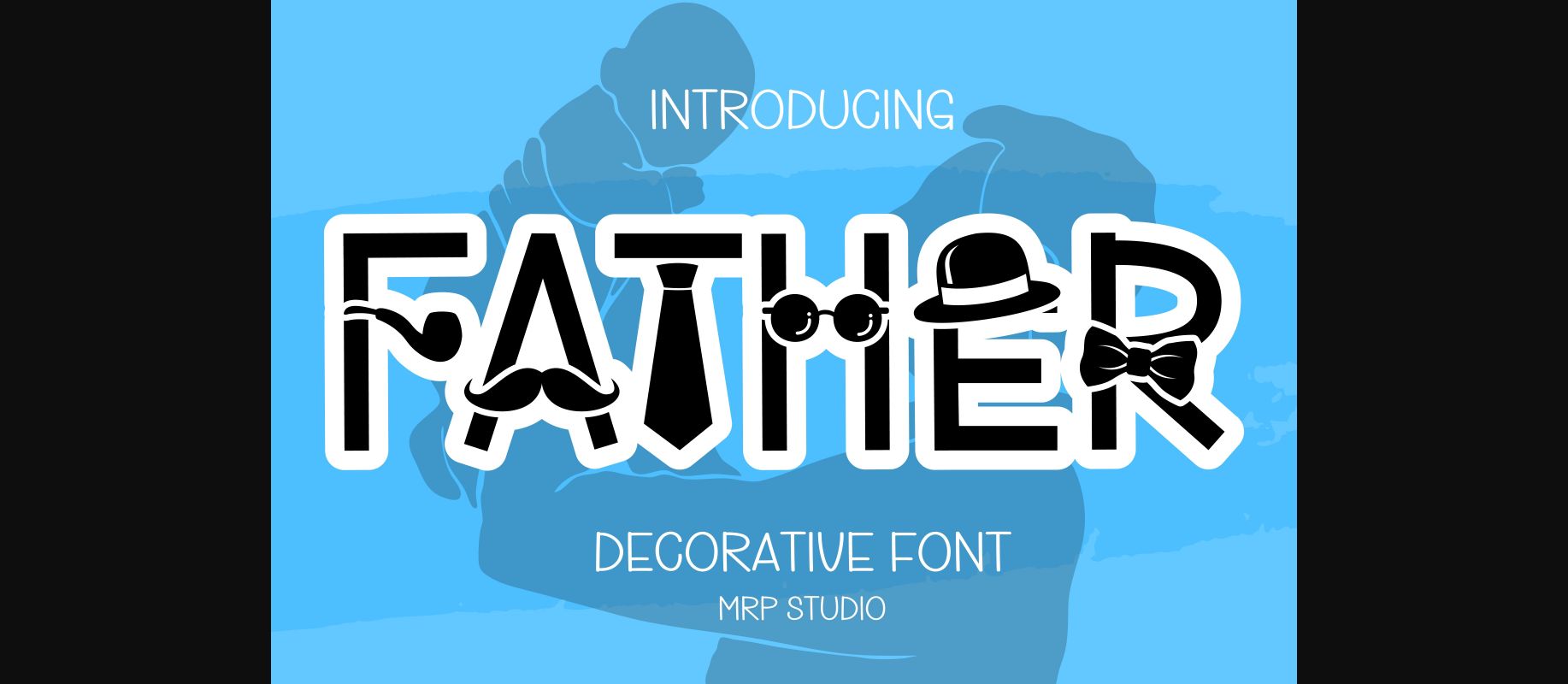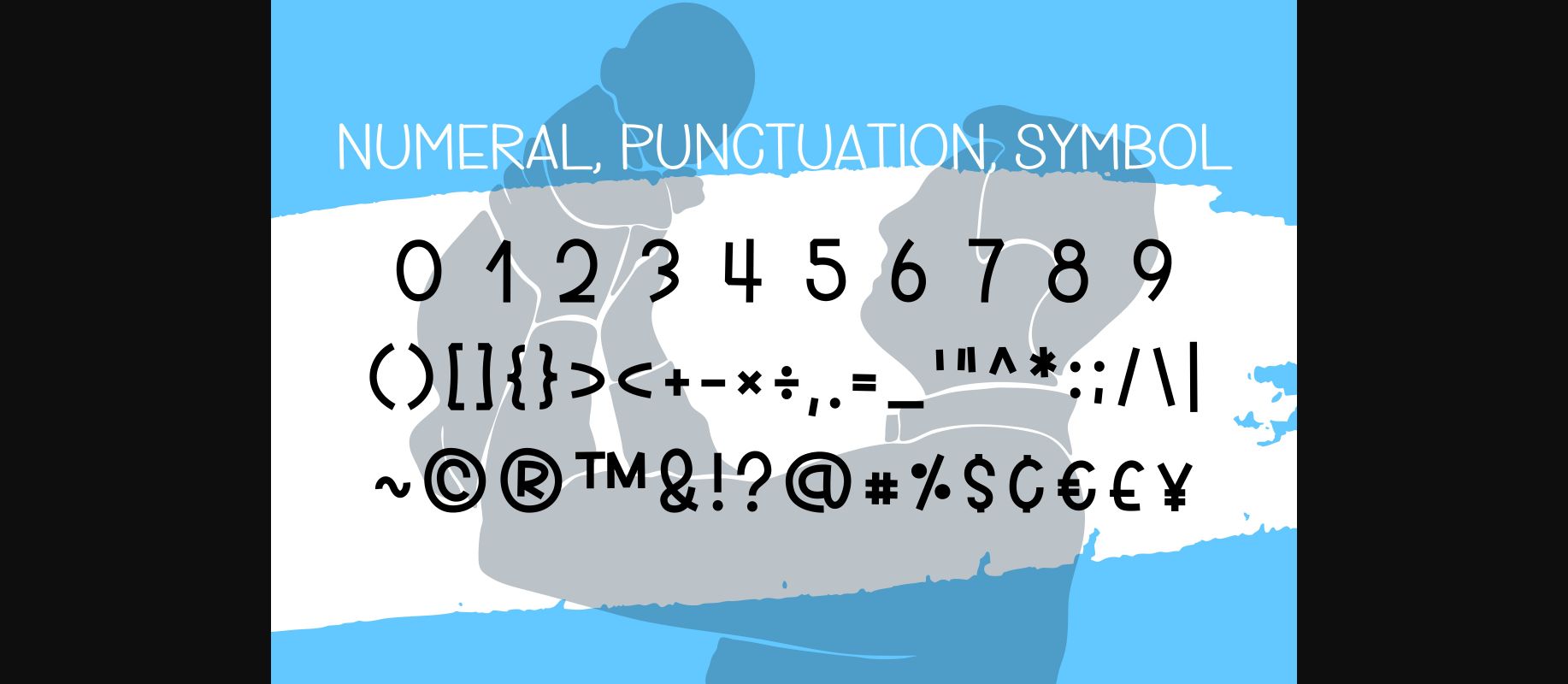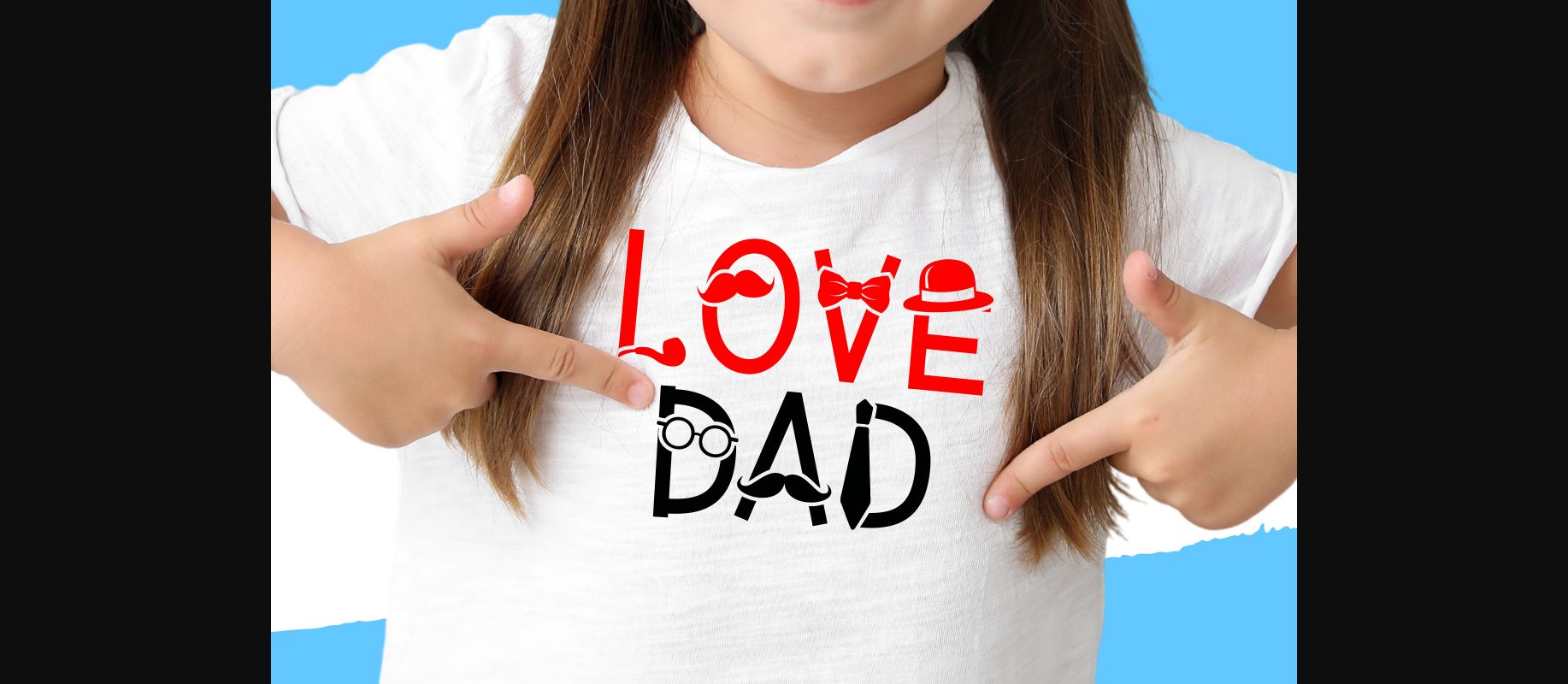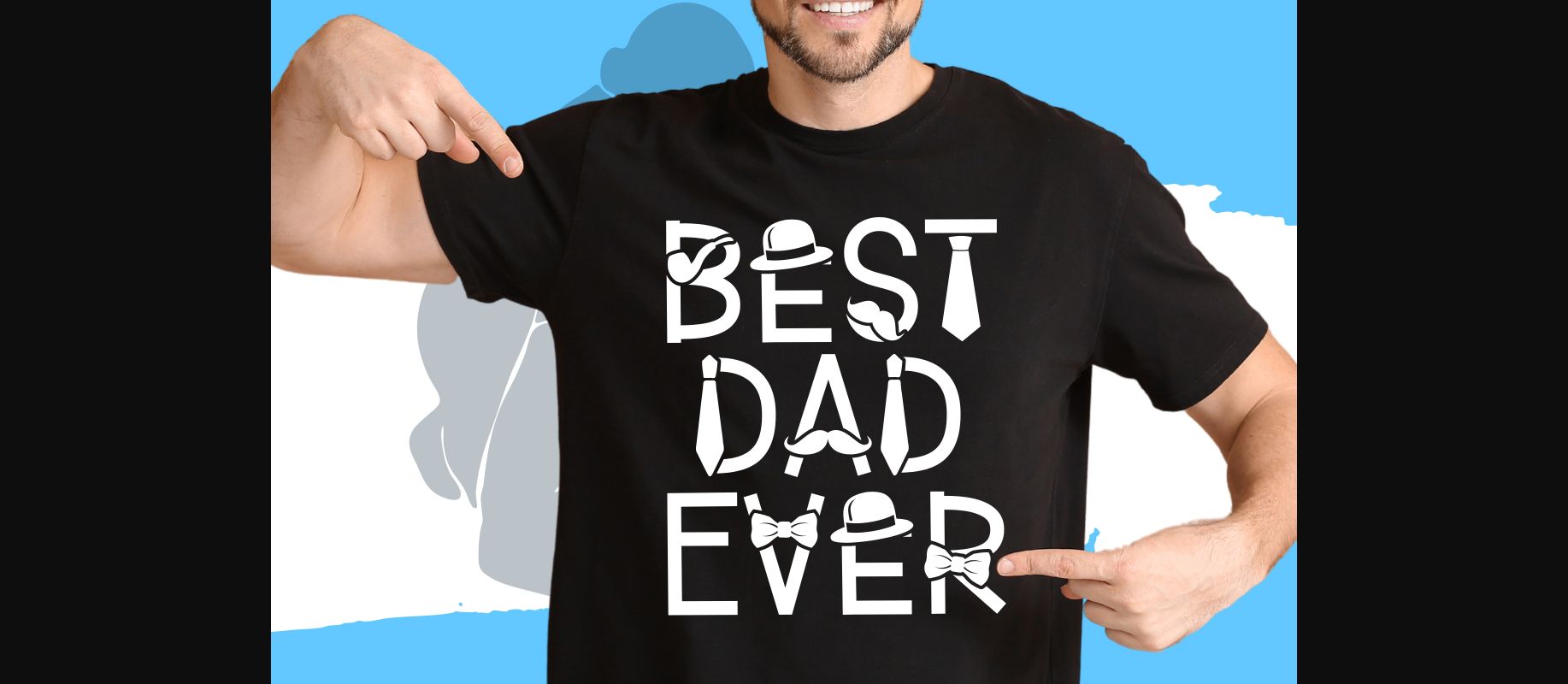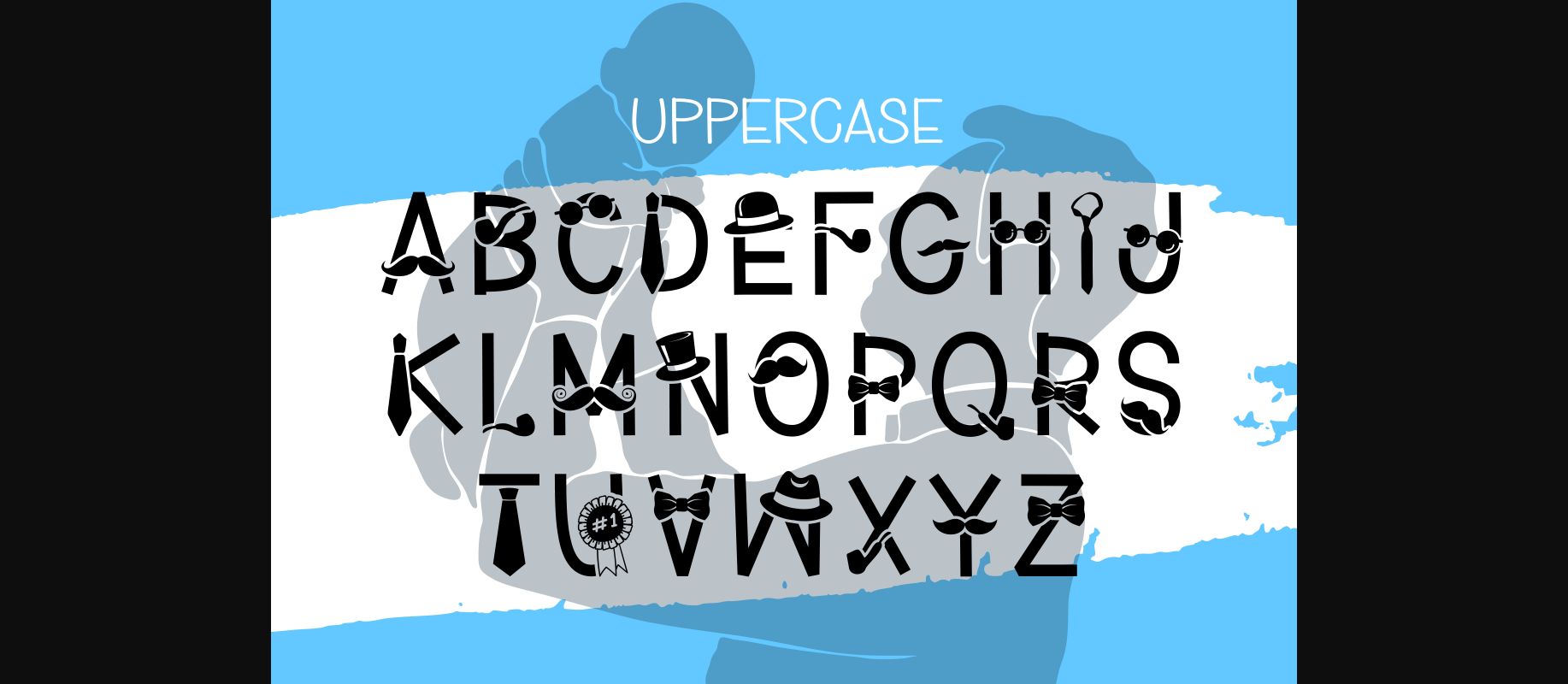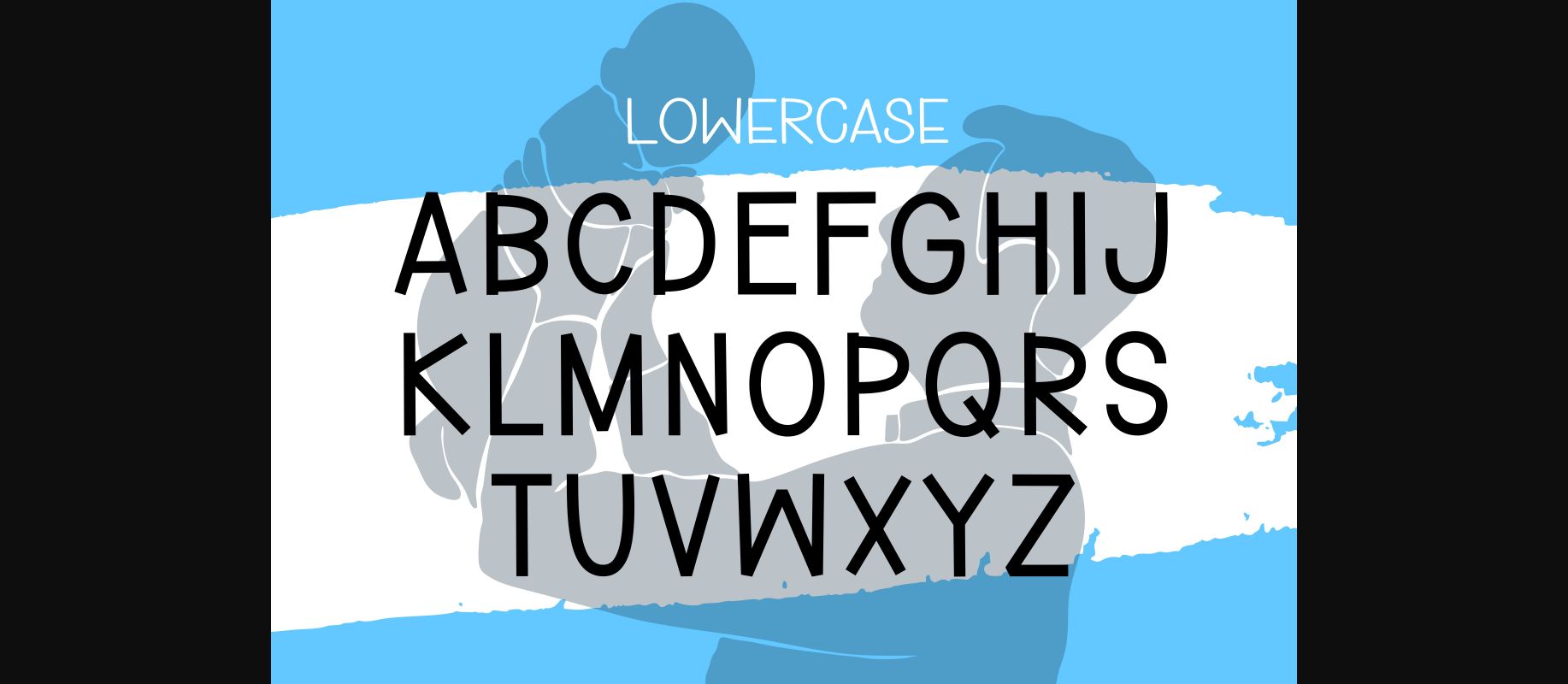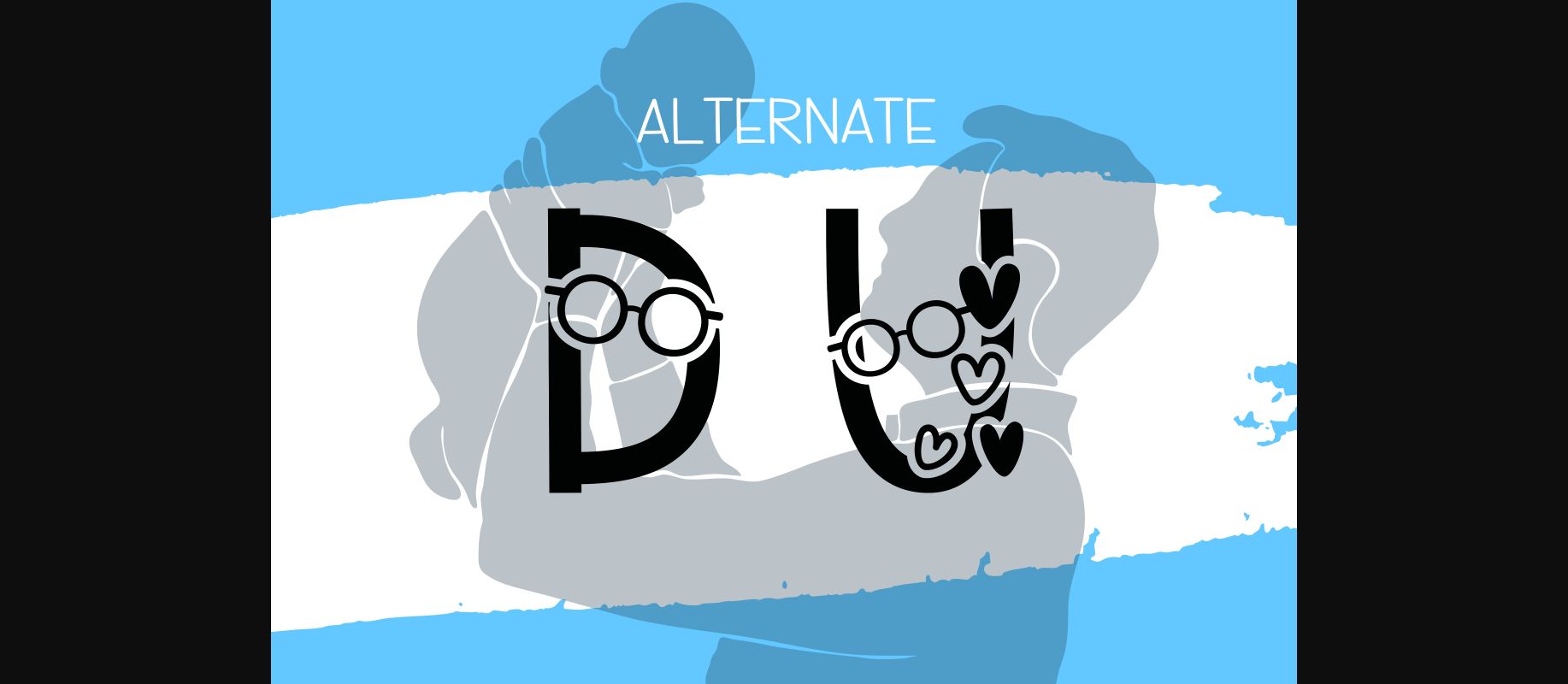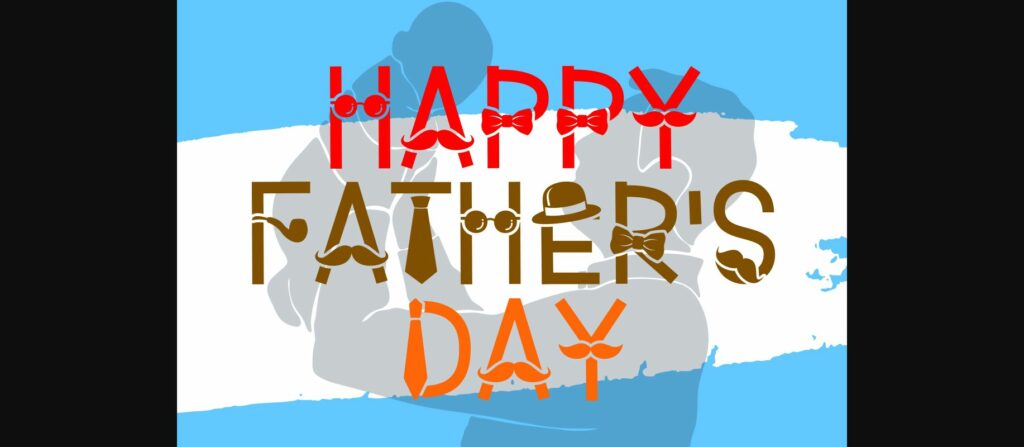
Father Font
About Father Font
Father is designed in a friendly and lovely decorative font style. It would be awesome for your lovely project and also your Father’s Day project, dad’s birthday party, dada decoration, and much more for any topic which needs bright and fun touch. Let’s try it and add it to your creative ideas and notice how it makes them stand out!